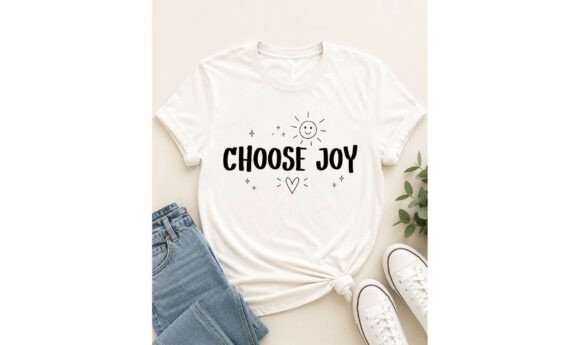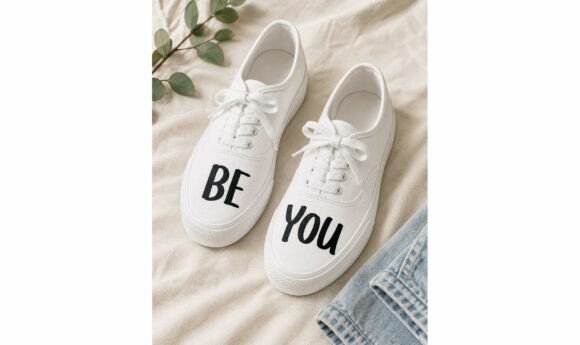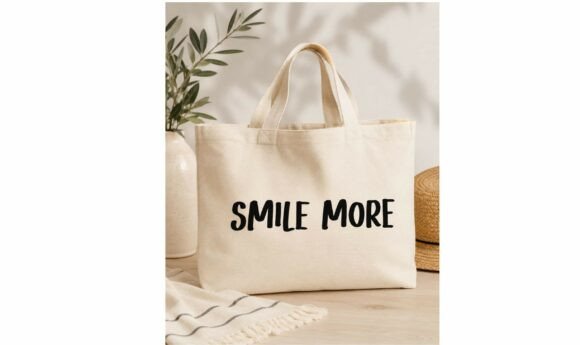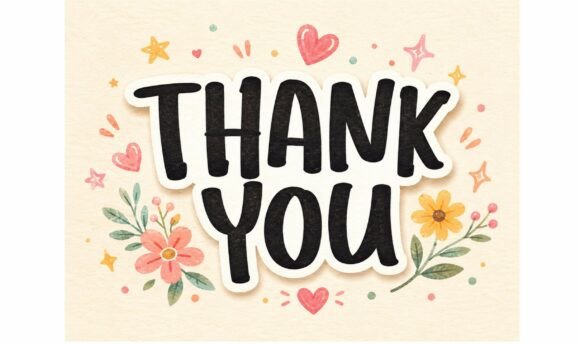
Introducing Friendly Maker Font: Add a Playful Touch to Your Creative Projects
Are you a crafter, small business owner, designer, or print-on-demand seller looking for a font that can add a personal touch to your creative projects? Look no further than Friendly Maker Font, a playful hand-drawn display font that is sure to make your designs stand out. With its bold strokes, soft shapes, and cheerful handmade feel, Friendly Maker is the perfect choice for anyone who wants to create cute, warm, and easy-to-read designs.
What Makes Friendly Maker Font So Special?
Friendly Maker Font is designed to bring a fun and friendly personality to your designs. Its casual handwritten style is perfect for a wide range of creative projects, including T-shirts, tote bags, stickers, mugs, cards, posters, packaging, children’s designs, Cricut crafts, sublimation products, and social media posts. Whether you’re creating something for personal use or for your business, Friendly Maker Font is sure to make your designs look appealing and engaging.
Key Features of Friendly Maker Font
- Playful hand-drawn design: Friendly Maker Font has a unique and playful hand-drawn design that gives it a cheerful and handmade feel.
- Bold strokes and soft shapes: The font features bold strokes and soft shapes that make it easy to read and give it a friendly appearance.
- Cute and warm designs: Friendly Maker Font is perfect for creating cute and warm designs that are sure to appeal to a wide range of audiences.
- Easy to read: The font is designed to be easy to read, making it perfect for use in a wide range of creative projects.
- Versatile: Friendly Maker Font works well for many designs, including T-shirts, tote bags, stickers, mugs, cards, posters, packaging, children’s designs, Cricut crafts, sublimation products, and social media posts.
Who Can Benefit from Friendly Maker Font?
Friendly Maker Font is perfect for a wide range of creative professionals and hobbyists, including:
- Crafters: If you’re a crafter who loves to create handmade items, Friendly Maker Font is a great choice for adding a personal touch to your designs.
- Small business owners: If you run a small business and need a font that can help you create attractive and engaging designs, Friendly Maker Font is a great option.
- Designers: If you’re a designer who works with clients who need a friendly and approachable font, Friendly Maker Font is a great choice.
- Print-on-demand sellers: If you sell print-on-demand products, Friendly Maker Font is a great choice for creating designs that will appeal to a wide range of customers.
- Experiment with different colors: Friendly Maker Font works well with a wide range of colors, so don’t be afraid to experiment and find the perfect color scheme for your design.
- Pair it with other fonts: Friendly Maker Font works well when paired with other fonts, so try combining it with a sans-serif font for a fun and playful look.
- Use it for headlines and body text: Friendly Maker Font is easy to read, making it perfect for use in both headlines and body text.
If you’re looking for a font that can add a playful touch to your creative projects, Friendly Maker Font is a great choice. With its bold strokes, soft shapes, and cheerful handmade feel, it’s perfect for creating cute, warm, and easy-to-read designs. Whether you’re a crafter, small business owner, designer, or print-on-demand seller, Friendly Maker Font is sure to become a favorite in your design toolkit.